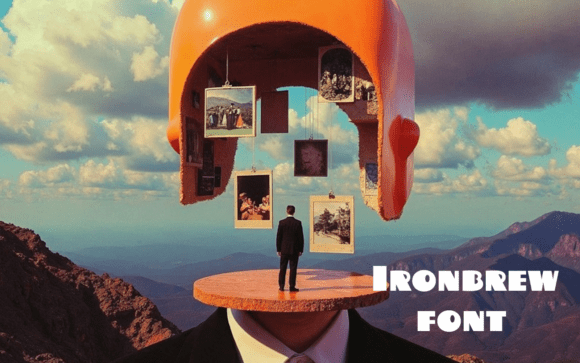
Unleash Your Inner Rebel with the Ironbrew Font
Remember the rush of excitement when you first stumbled upon that perfect font for your design project? The thrill of watching your idea come to life, and the satisfaction of seeing your vision take shape? For designers, that moment is what it’s all about. But what if you could tap into that excitement every time you create?
Enter the Ironbrew Font, a game-changing typography that’s as bold as it is beautiful. Inspired by the rugged charm of vintage bottle labels and hard-hitting signage, Ironbrew brings a gritty, nostalgic vibe to every design. With its unique blend of attitude and style, this font is perfect for logos, packaging, and anyone who likes to make a statement.
- Unique Character Set: Ironbrew Font features a unique set of characters, including alternate glyphs, ligatures, and swashes, allowing designers to add a touch of personality to their work.
Ironbrew Font Review
When I first laid eyes on the Ironbrew font, I was immediately drawn to its unique, industrial feel. The distressed textures and worn-in edges evoke a sense of ruggedness that’s perfect for anything from grungy music bands to steampunk-inspired designs. ✨ I think the font does an excellent job of capturing the essence of vintage machinery and distressed metal.
One of the standout features of Ironbrew is its high level of customization. With 15 different styles and a wide range of font sizes, it’s easy to get creative with this font. ✨ You can create everything from bold, attention-grabbing headlines to delicate, intricate text. I also appreciate the fact that the font is highly legible, even in smaller sizes.
- ⚠️ Limited language support: Ironbrew only includes Latin characters, which may be a limitation for designers working on international projects.
- ⚠️ Limited font sizes: While the font offers a wide range of sizes, it’s not ideal for very small or very large text. In these cases, the font may become difficult to read.
Overall, I think the Ironbrew font is a great addition to any designer’s toolkit. Its unique aesthetic and high level of customization make it perfect for a wide range of projects. However, its limitations should be taken into consideration when deciding whether to use it. ✨
The Ironbrew Font is ideal for use in food and beverage branding, such as restaurant menus, packaging labels, and marketing materials. It is also suitable for use in craft beer and coffee branding. Additionally, the font’s unique style makes it a great choice for use in creative and artistic projects.
To get the most out of the Ironbrew Font, use it in conjunction with other fonts that complement its unique style. Experiment with different font sizes and styles to create visual interest. Consider using the font in bold or italic styles to add emphasis to certain text elements.